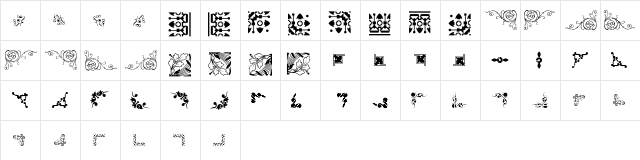
SYMBOL-16 Normal Font Preview
SYMBOL-16 Normal
SYMBOL-16 Normal Font Details
Design Context for SYMBOL-16 Typeface
SYMBOL-16 is a composed and adaptable typeface that performs quietly and consistently across a wide range of design contexts.